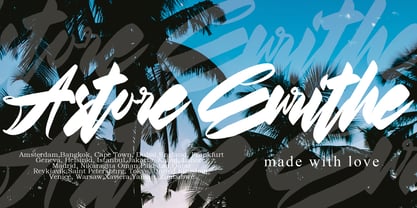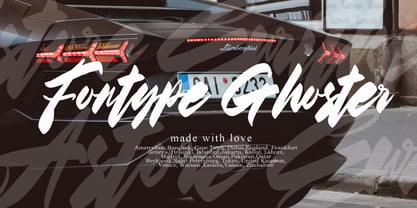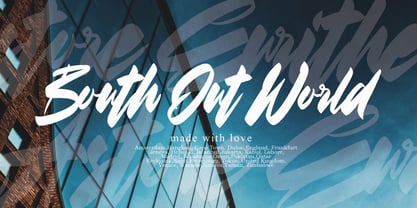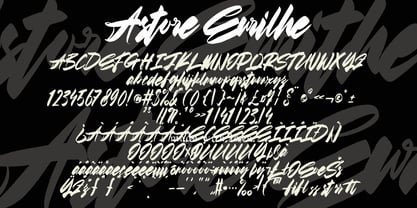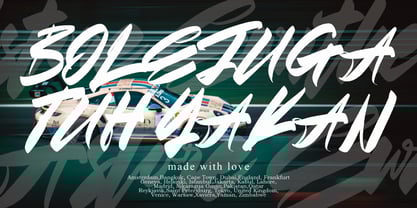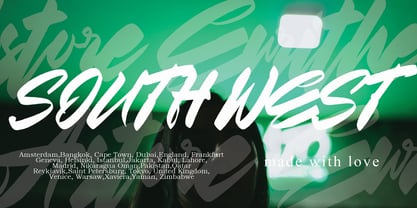
Astore Eurilhe
The Astore Eurilhe Font Family was designed by Beni Saswita and published by Pineungtype misinklab. Astore Eurilhe contains 1 styles.
✨ Astore Eurilhe – Elegant Handwritten Script Font Hatim Sakamseh is an elegant handwritten script font inspired by natural handwriting and modern calligraphy. This font has a clean, smooth, and romantic feel, perfect for premium designs that need a personal and classy touch. Ideal for branding, logos, wedding invitations, photography, social media, and creative projects. 📁 What’s Included: Uppercase & lowercase letters Numbers & punctuation Easy installation (Windows & Mac) 💍 Perfect For: Signature logos & branding Wedding invitations & stationery Photography watermark Social media quotes & posts Posters, wall art & packaging Canva & Cricut projects 🌿 Font Style Features: Natural handwritten strokes Elegant & romantic script Smooth curves & stylish flow Modern signature look Professional & clean design 📥 Instant Digital Download This is a digital product, no physical item will be shipped. You can download the files instantly after purchase. 📌 License: ✔ Personal use ✔ Commercial use ✖ Reselling or redistributing the font files is not allowed